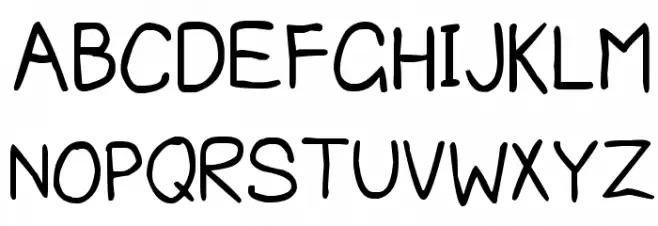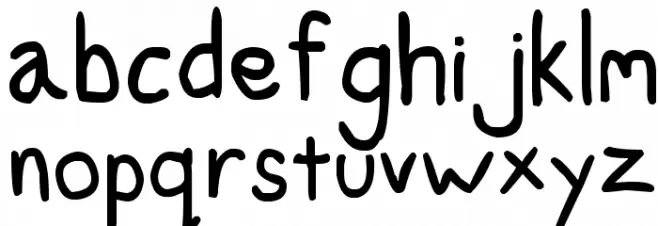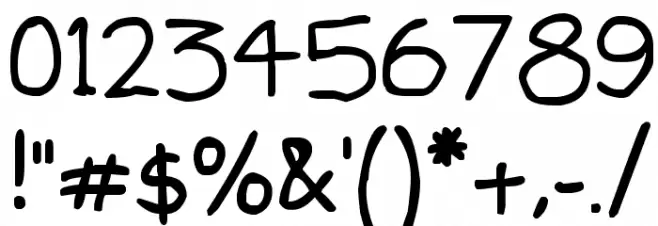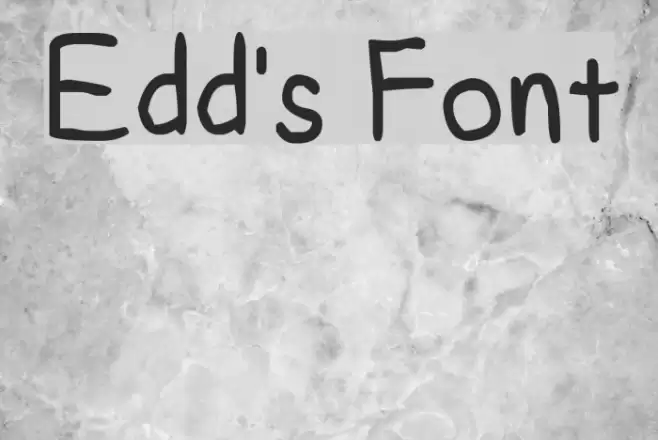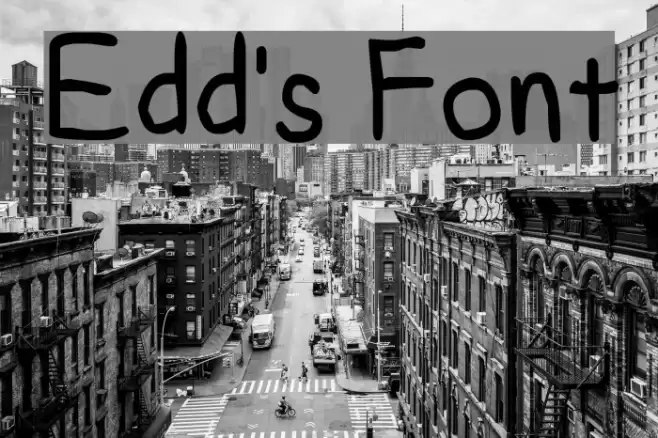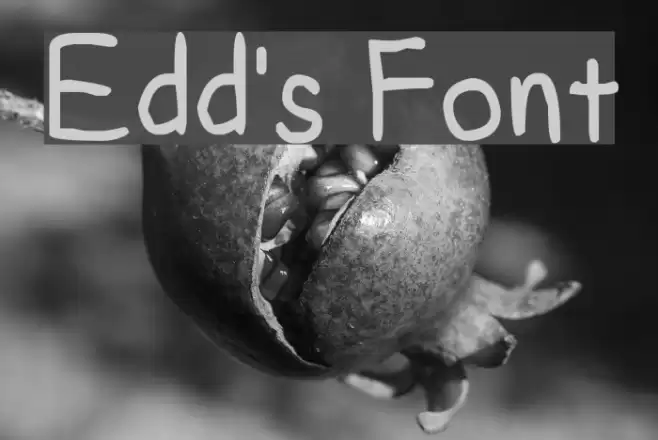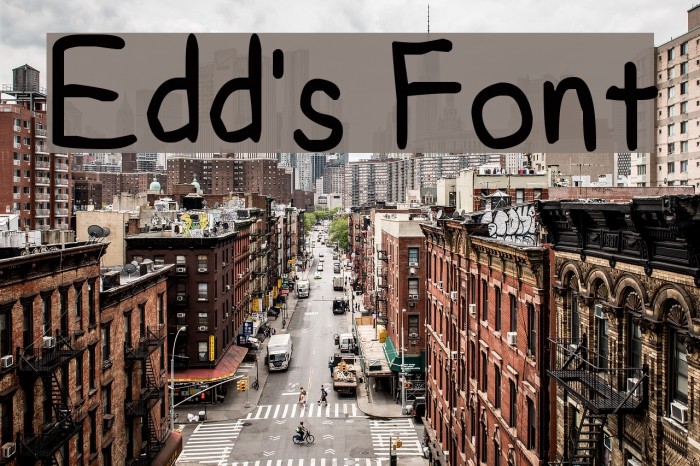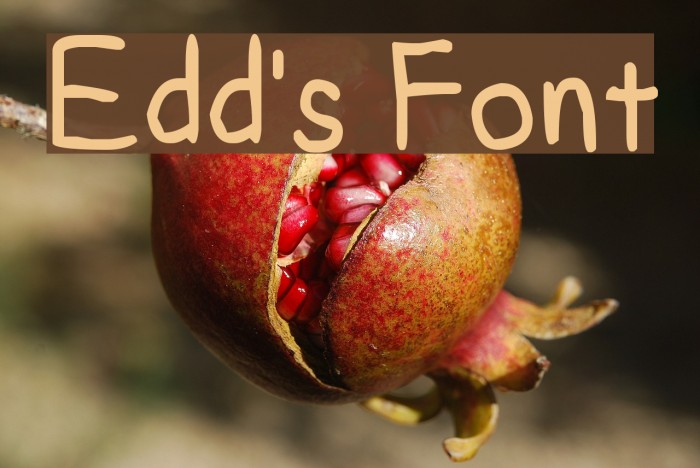
Edd's Font
This playful and informal font features a handwritten style with a casual, friendly appearance. The characters are slightly irregular, adding a personal touch reminiscent of doodles or notes. The uppercase and lowercase letters maintain a consistent flow, while the numbers and special characters complement the overall style. The strokes are moderately thick, providing good readability without losing the whimsical charm. This font is perfect for projects that require a fun and approachable aesthetic.
A playful, handwritten font with a casual and friendly appearance.
- Proposed Projects: Ideal for children's books, greeting cards, casual branding, and social media graphics.
- Overall Style: Casual
- Use Case: Headlines, Informal text, Creative projects